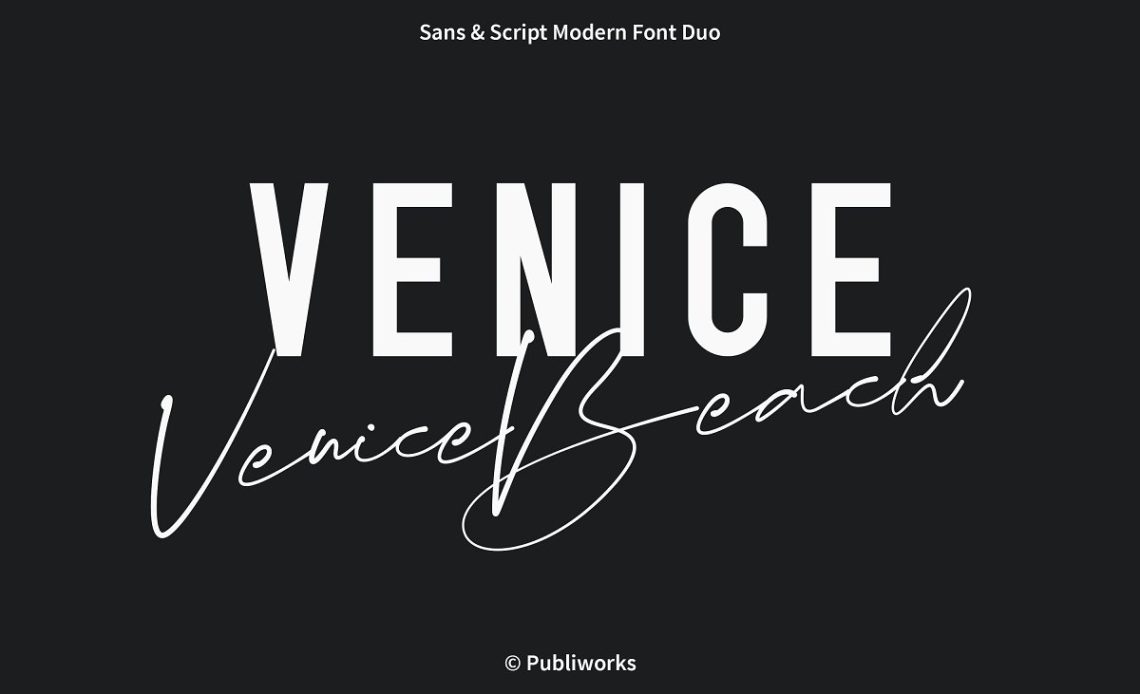
Introducing Venice Beach - Modern Font Duo, the ultimate font collection for game design enthusiasts! This script font family is the perfect blend of elegance and modernity, designed to captivate your audience and elevate your projects to new heights. With its stunning versatility and captivating charm, Venice Beach is here to revolutionize your creative journey.
Featuring three incredible styles - Script, Sans, and Outline - this font duo offers you endless possibilities to unleash your creativity. Each style comes with a whopping 209 characters, including both basic and advanced sets, ensuring that your designs are as unique as your imagination.
But that's not all! Venice Beach Script also boasts nine exquisite ligatures, adding a touch of finesse to your typography. Whether you're creating a logo, a poster, or a game interface, these ligatures will make your design stand out from the crowd.
Lowercase or uppercase, numerals or punctuations, Venice Beach has got you covered. This font duo is equipped with everything you need to create visually stunning and engaging designs. And with its OTF file format, compatibility is never an issue.
We understand the importance of multilingual support, and that's why Venice Beach offers seamless integration with various languages. No matter where your audience is, this font duo will communicate your message with utmost clarity and sophistication.
Proper kerning is the secret ingredient to seamless and professional-looking typography. With Venice Beach, you can bid farewell to awkward spacing and embrace perfectly balanced letterforms. Our font experts have meticulously crafted every character to ensure a flawless reading experience.